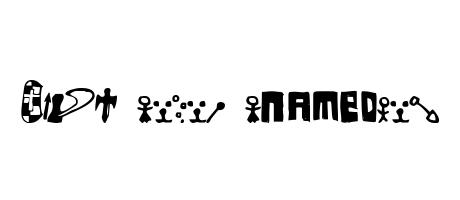
FSO Never Named
By Jeff George
FSO Never Named is a playful, hand-drawn font. It's a chaotic mix of bold, blocky lettering, reminiscent of graffiti, interwoven with quirky, childlike figures and symbols. The style is highly irregular and expressive, conveying a sense of fun and slightly rebellious energy. It lacks uniformity, making it visually unique.